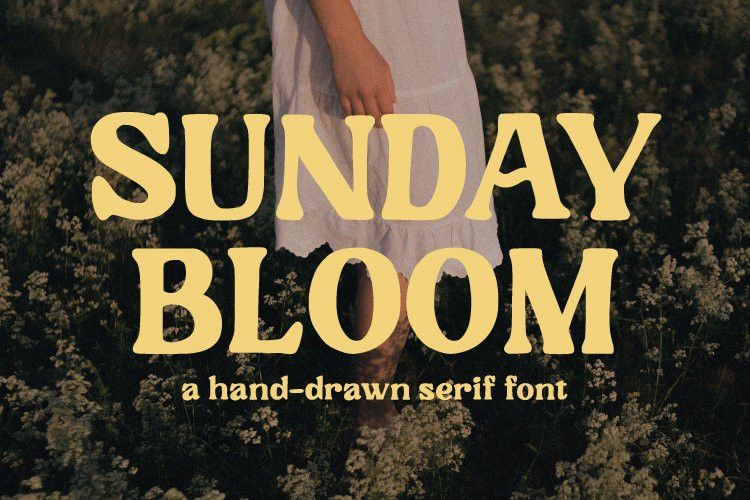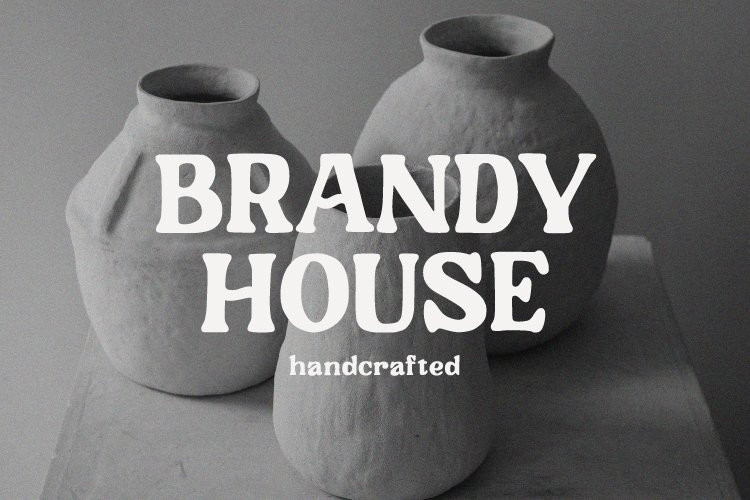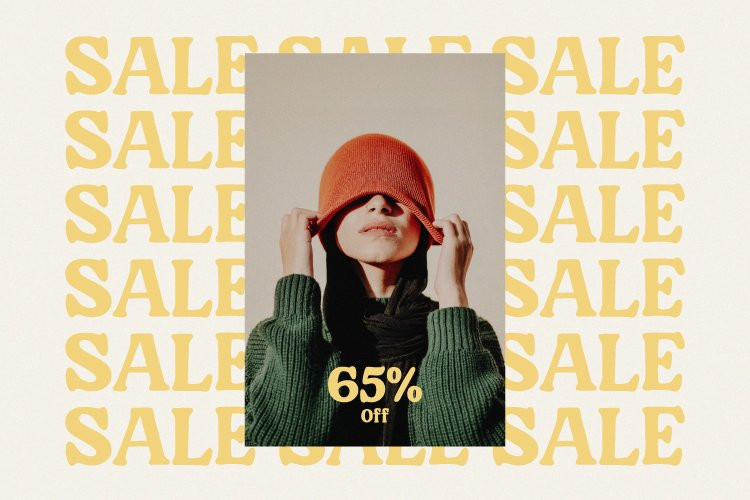
Sunday Bloom Font
Sunday Bloom FontSunday Bloom – Is a hand drawn font. This is perfect for those of you who want a modern and simple look with a rustic touch. Sunday Bloom font is perfect for logos, covers, social media and branding designs.